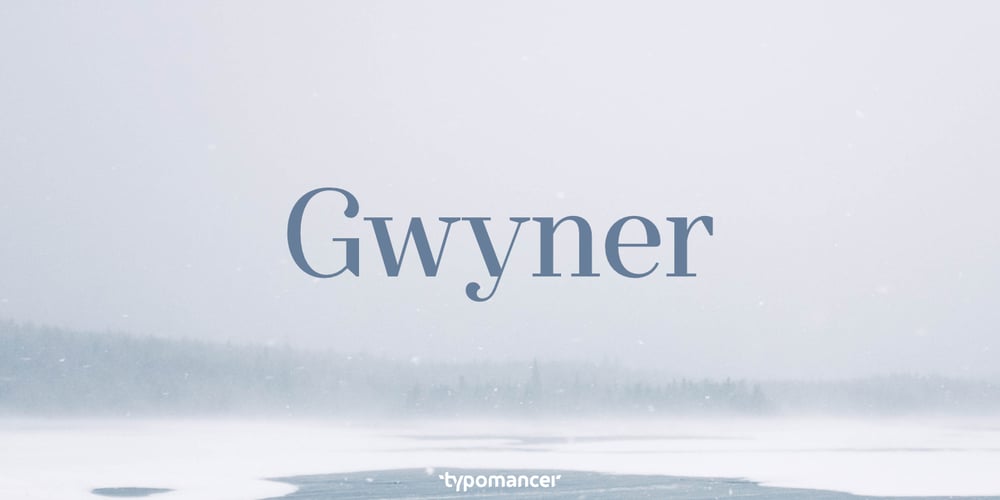
Gwyner Font Family was designed by Warit Chaiyakul and published by Typomancer. Gwyner contains 16 styles and family package options. Gwyner, a strengthened didone with sharp and clean characteristics, comes with thin to bold weights and is suitable in italic for various uses. A condensed family for space-saving design.